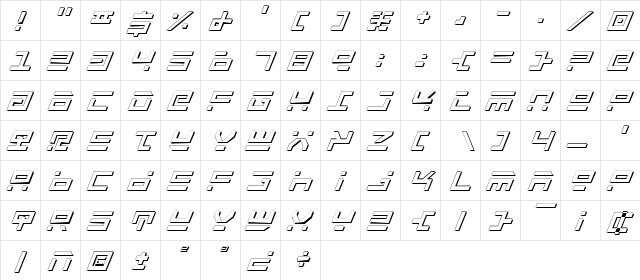
Rocket Type Shadow Italic Shadow Italic
Design Context for Rocket Type Shadow Italic Typeface
Rocket Type Shadow Italic is built around its visual character rather than neutral utility — its distinctive forms are designed to make an impression at display sizes. The dynamic lean of this cut emphasises speed and emphasis in any layout.
Font Pairing: Pair with a clean neutral sans-serif for body copy to let Rocket Type Shadow Italic's character lead without overwhelming the composition.
Pro Tip: Use Rocket Type Shadow Italic exclusively at display sizes — it was designed to be seen, not read at length. Let a neutral companion handle body copy.